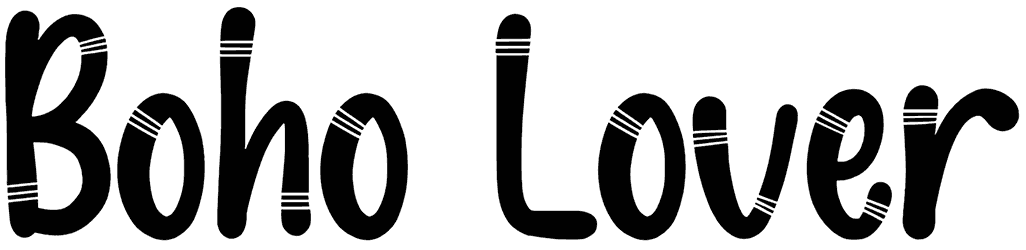
Boho Lover Font
For a good reason, fashion magazines, tech posters, and beauty logos use Boho Lover. This cartoon font gives a beautiful and luxurious appearance to the entire content, which is bright and shiny due to the linear effects on its body.
This boho font was developed based on handwritten fonts and has a personal and organic feel. So if you want to create an outstanding atmosphere while creating a sincere atmosphere, take advantage of the time to download this font.